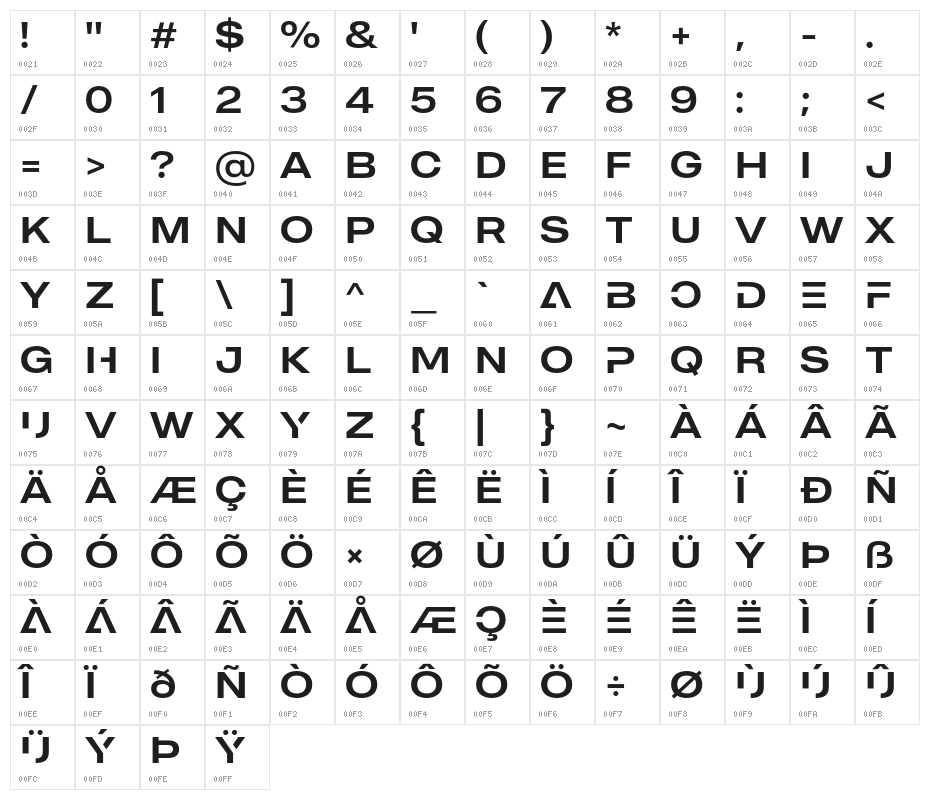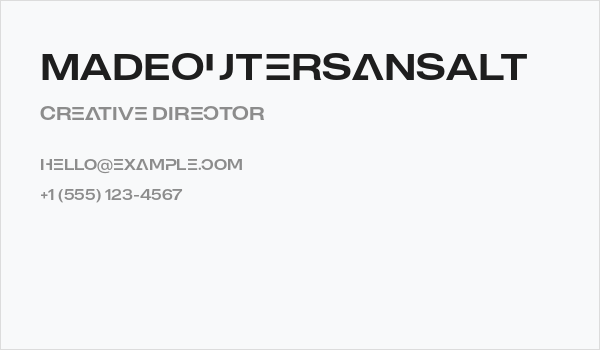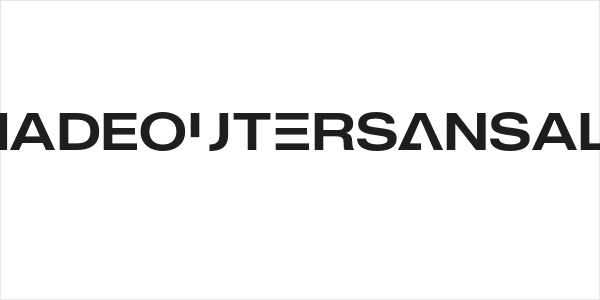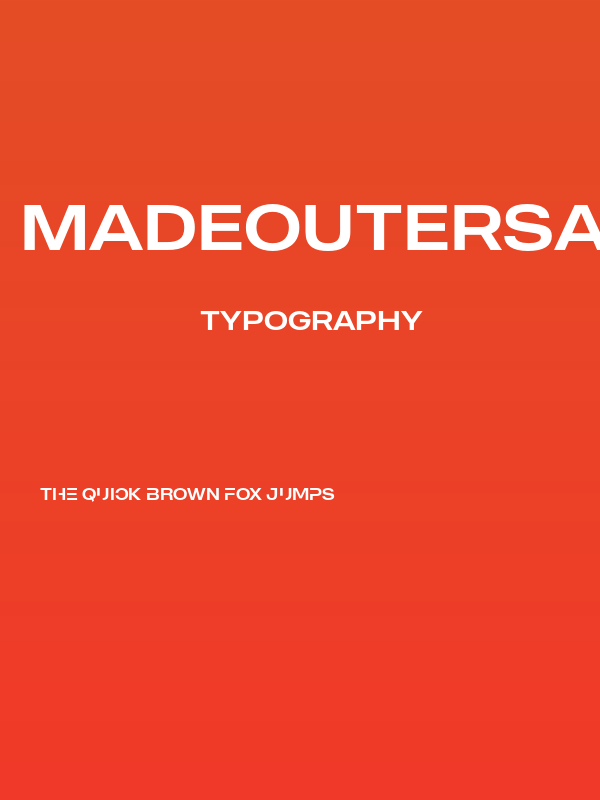
MADEOuterSansAlt Font
| Caso de uso | Headlines, Logos, Branding |
| Projetos propostos | Ideal for branding, advertising, headlines, and digital content where a modern and bold appearance is desired. |